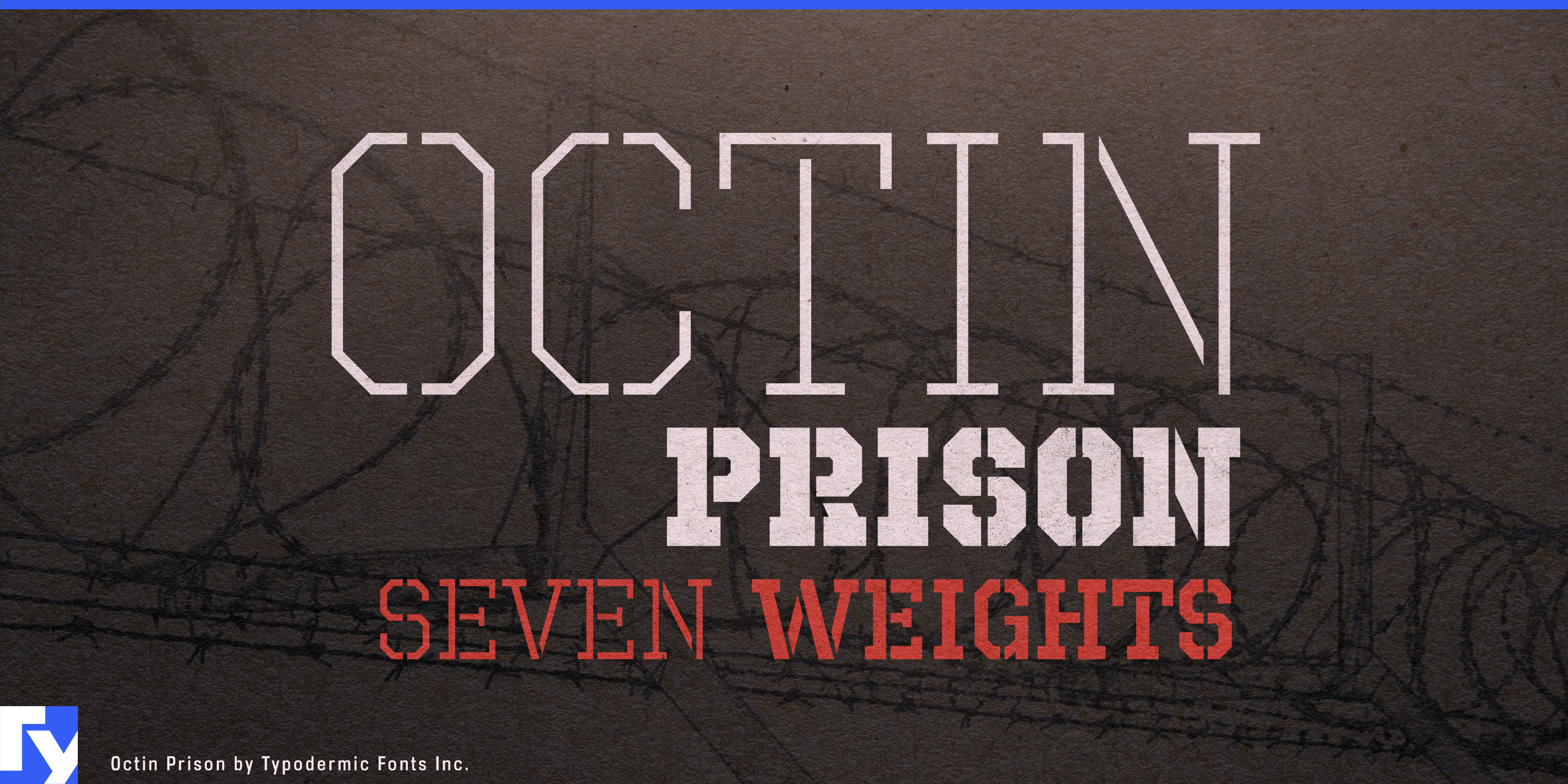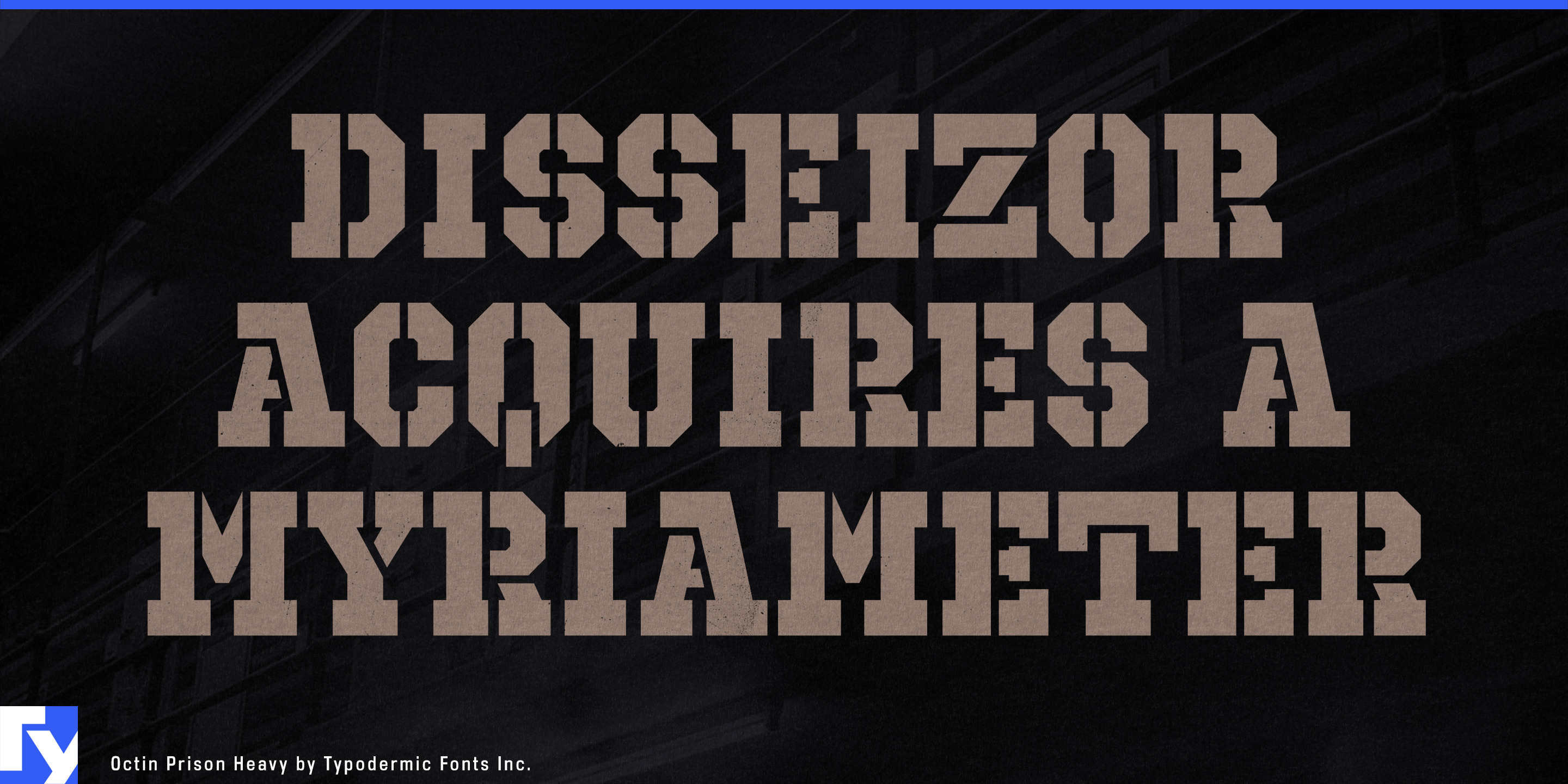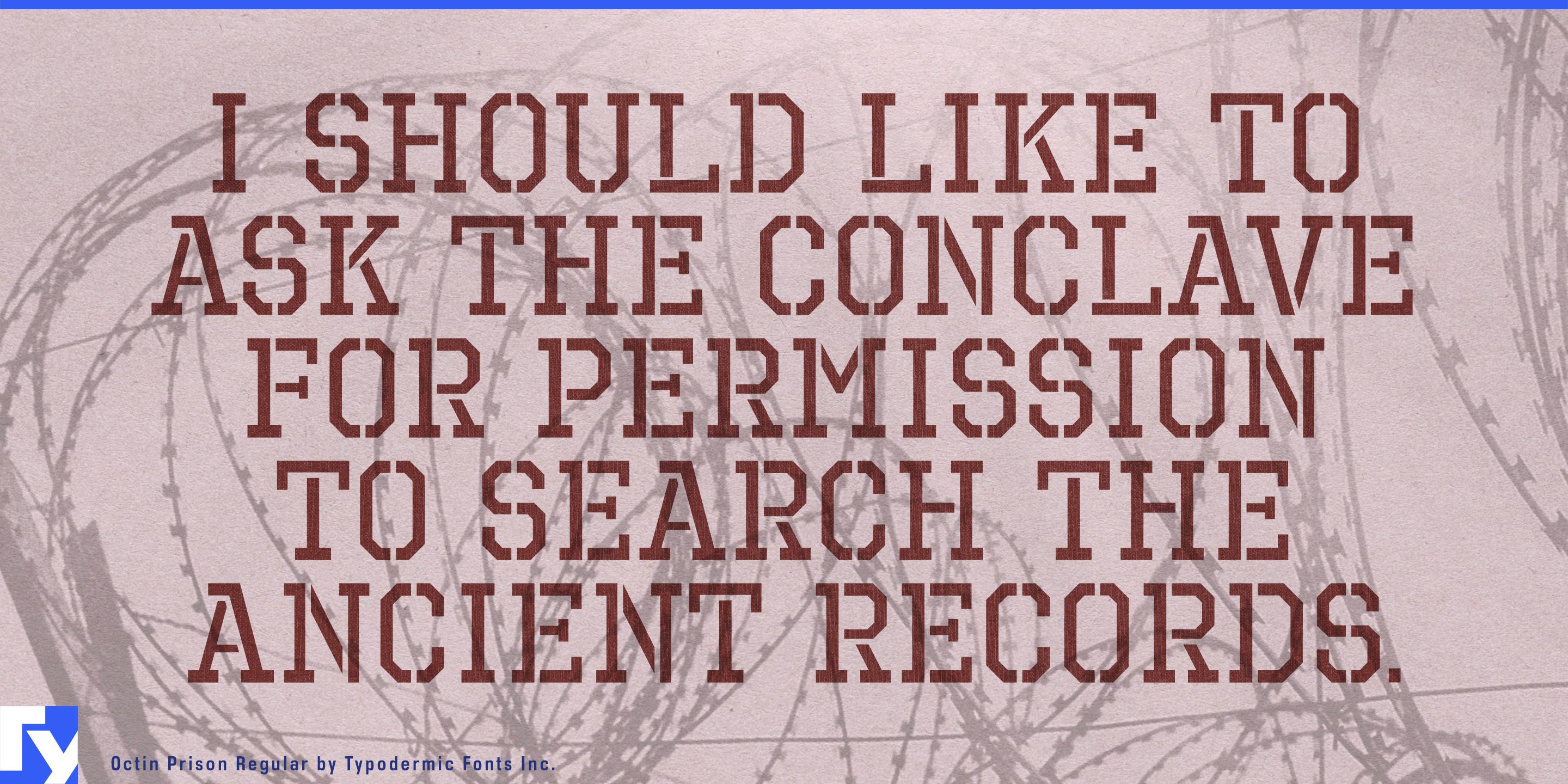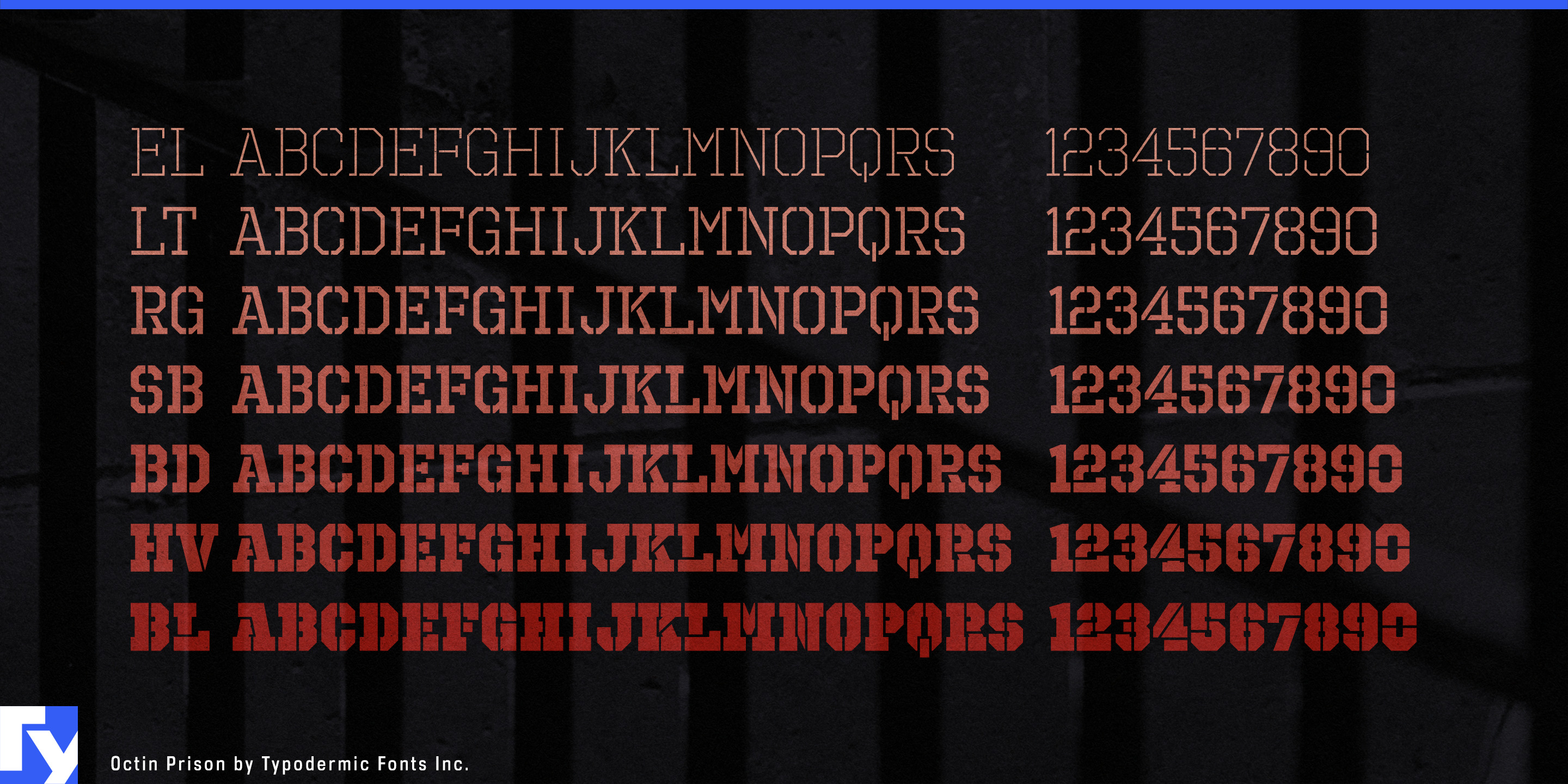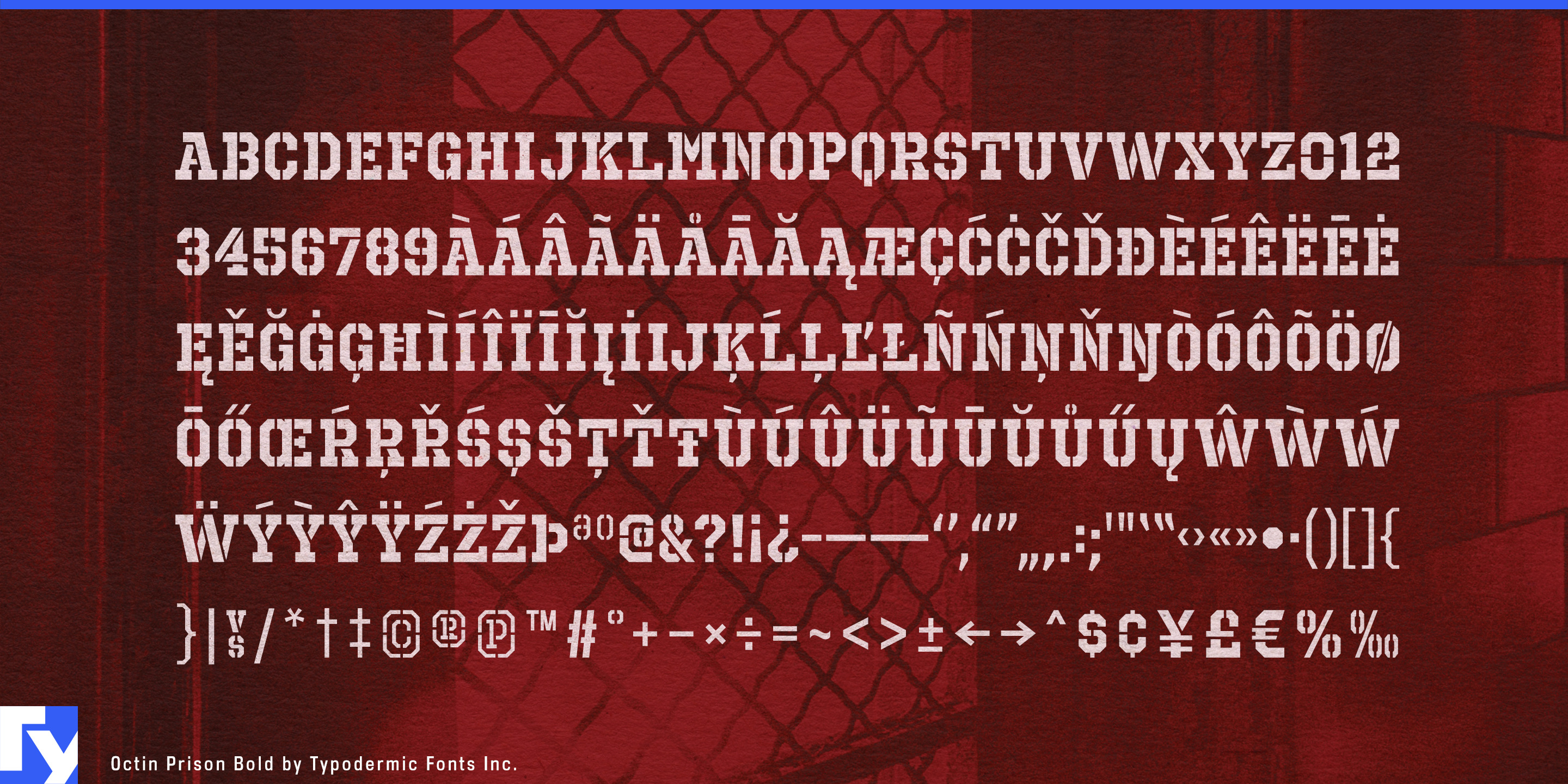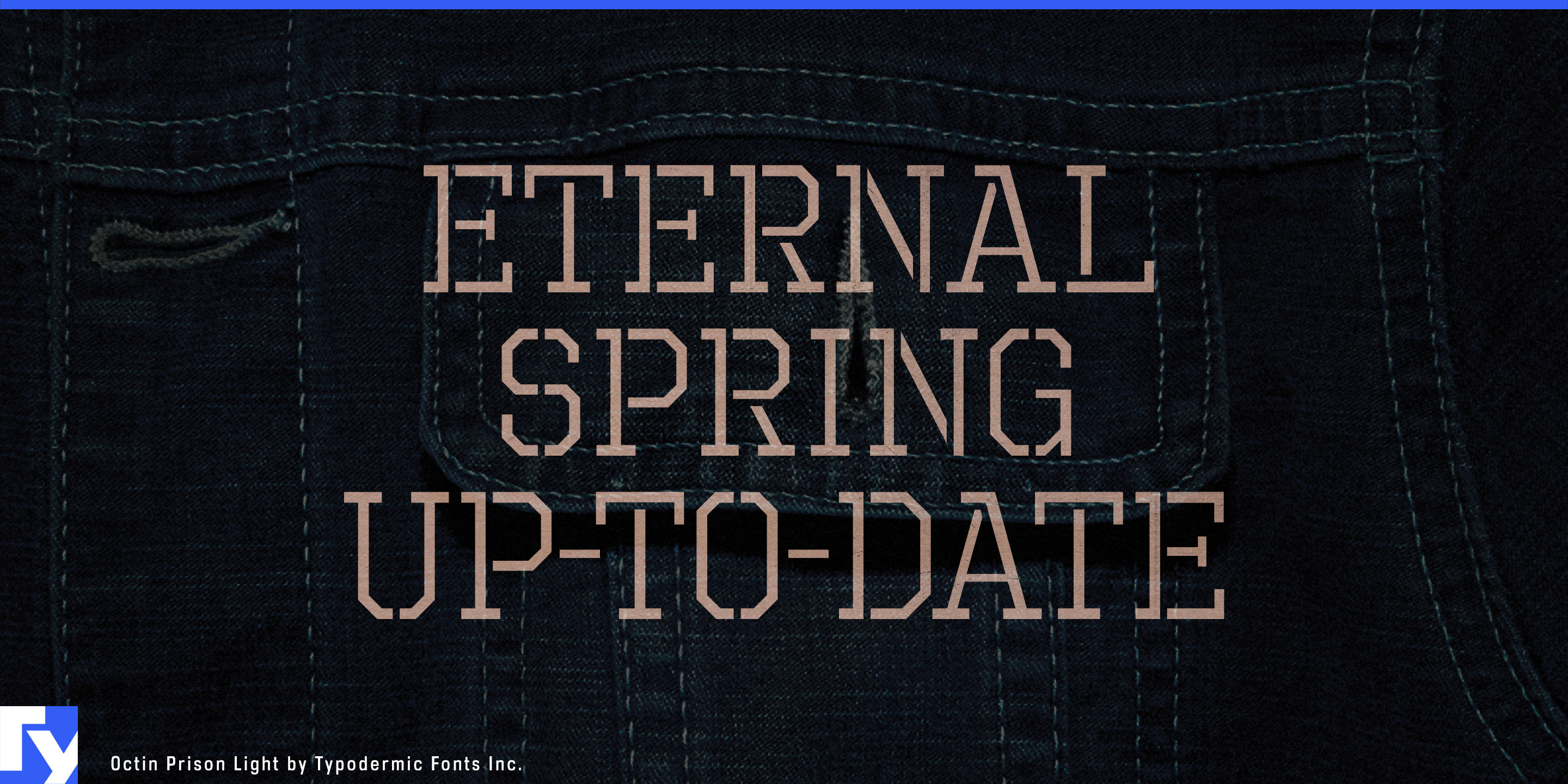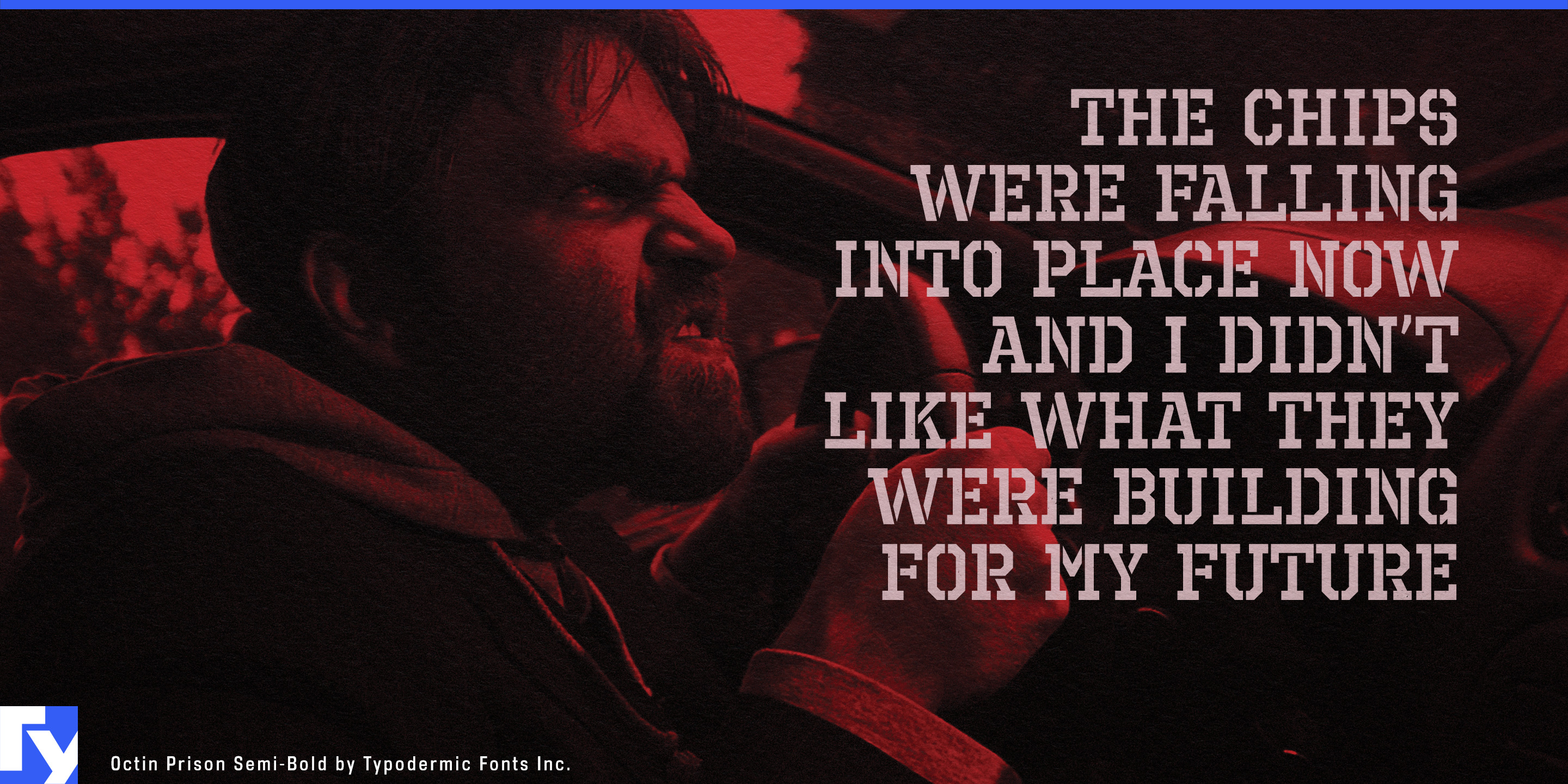
Octin Prison
A military stencil marks equipment. Octin Prison marks boundaries.
Its all-caps octagonal slab-serif construction combines stencil breaks with a heavier, more restrictive structure, creating typography that suggests containment, classification and institutional control. Seven weights from Extra-Light through Black give the idea far more range than a single heavy novelty prison face; lighter styles can handle secondary labels and environmental headings, while the heavier weights make titles and identifiers more imposing.
Prison dramas and incarceration-themed entertainment are the most literal applications. Series titles, episode headings, cell-block identifiers, inmate numbers, promotional graphics and fictional institutional signage can share the same visual language. In prison-management and escape games, the family can extend beyond the title into zone names, mission headings, menu categories and controlled-area labels.
Dystopian settings broaden that idea beyond literal prisons. Fictional detention centers, quarantine sectors, maximum-security laboratories, labor compounds and authoritarian institutions need typography for clearance levels, holding areas, personnel classifications, sector names and warning headings. Octin Prison suggests an organization built around rules and restricted movement without automatically turning the setting into a military base.
Prison-history documentaries, criminal-justice series and archival investigations can use the family more selectively for title cards, chapter headings and promotional graphics with an overt institutional tone. Prison-break attractions, dystopian escape experiences, immersive theatre and themed horror environments can carry the same language into facility names, checkpoint graphics, cell blocks, room identifiers and tickets.
Octin Prison also has a narrower role in strength culture where prison-yard imagery is deliberately part of the identity. Hardcore gyms, weighted-calisthenics programs, strength challenges and training apparel can use the slab-stencil construction without drifting into ordinary varsity lettering.
Octin Prison belongs to a coordinated six-family series. Octin College handles non-athletic academic identity; Octin Sports provides the varsity slab-serif voice; Octin Stencil handles tactical and logistical marking; Octin Vintage adds worn heritage texture; and Octin Spraypaint supplies a fresher painted treatment. Octin Prison is the branch for controlled environments, confinement narratives and institutional systems where the typography should make the restrictions visible.